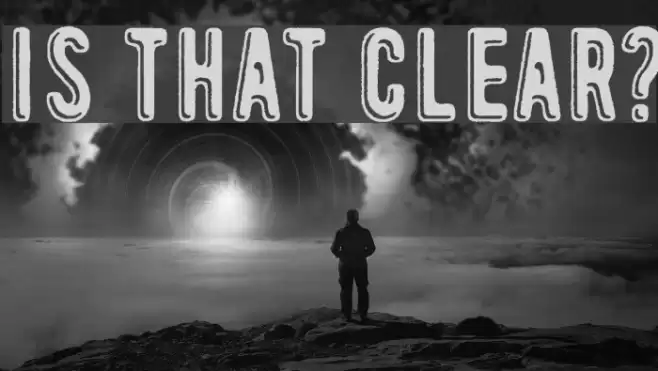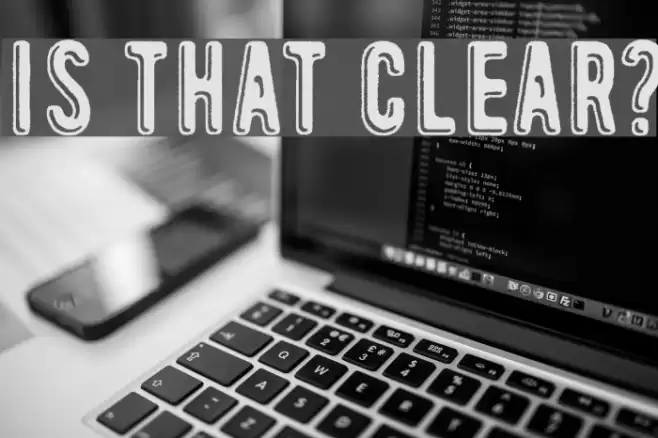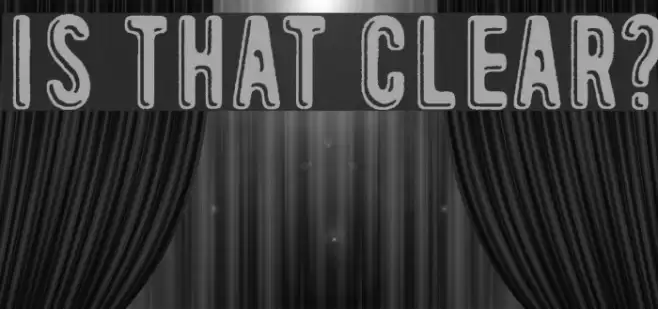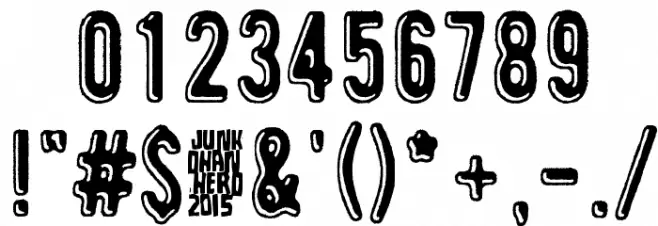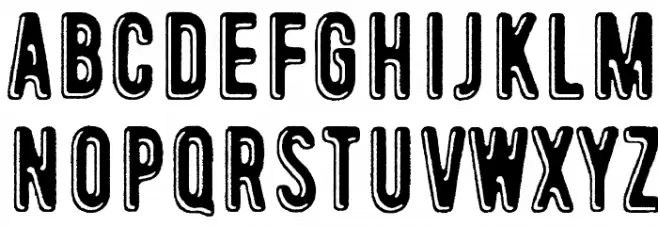
Is that clear? Font
Is that clear? Description
This font features a bold, decorative style with a distressed, textured appearance that gives it a vintage, rugged feel. The characters are outlined with a thick border, creating a striking contrast between the inner and outer parts of each letter. The uppercase and lowercase letters maintain a consistent width, while the numbers and special characters follow the same design principles. The font's unique style makes it stand out, ideal for projects that require a strong visual impact.
A bold, decorative font with a distressed, vintage look from Uncategorized fonts.
- Proposed Projects: Ideal for posters, logos, branding, and any design project that requires a bold, eye-catching typeface.
- Overall Style: Vintage, Decorative